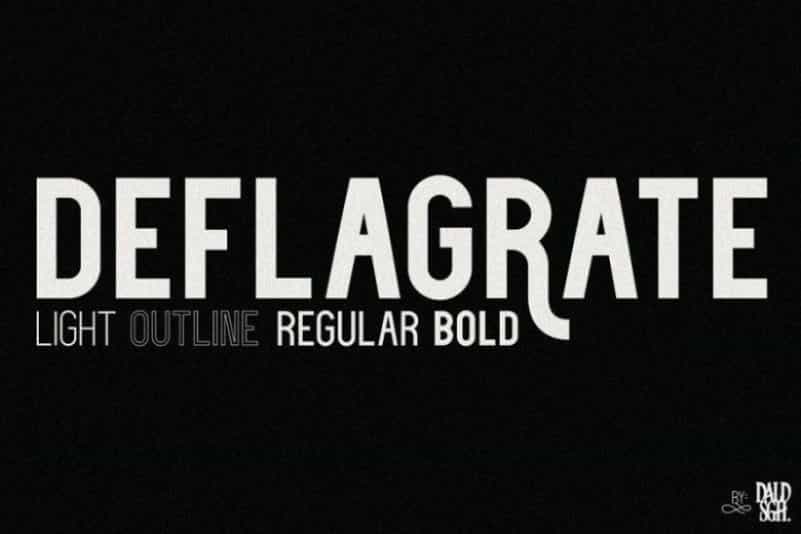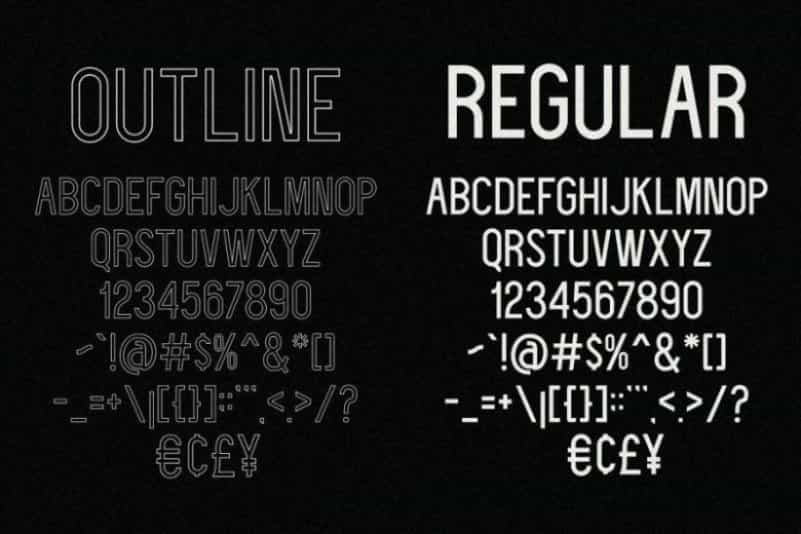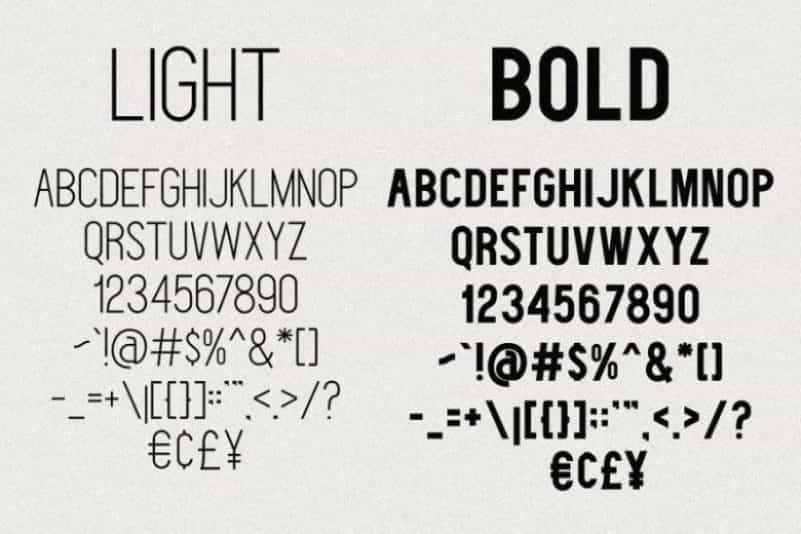
Introducing Deflagrate Font. It is crafted and distributed by DaldSgh. Deflagrate font has the characteristics of alternates. highly applicable for the design of magazines, packaging, branding , website header, posters, greeting cards, letterhead and other creative projects.